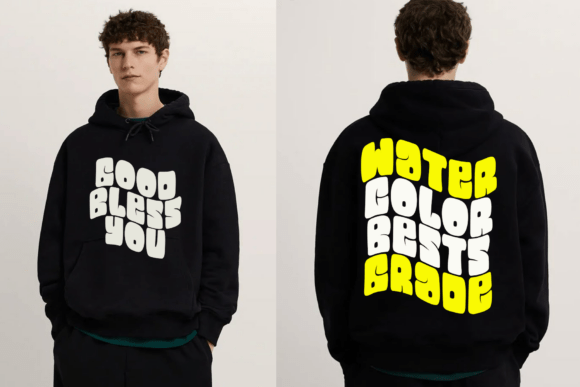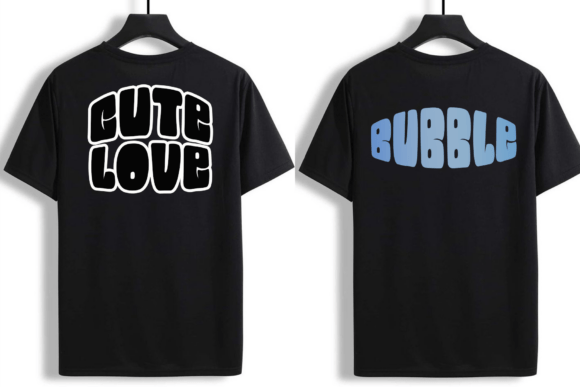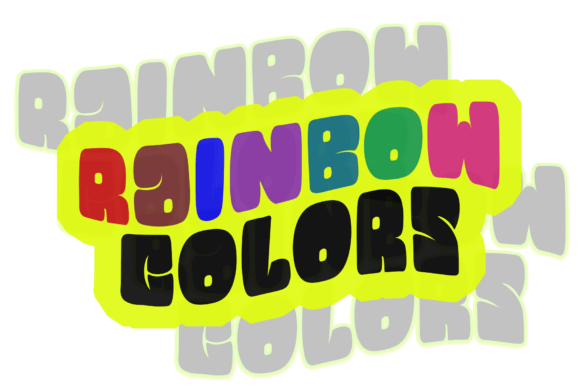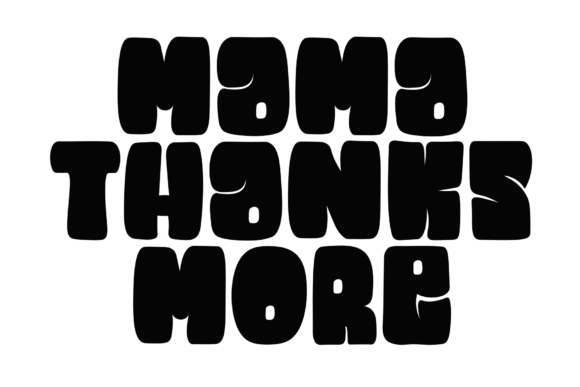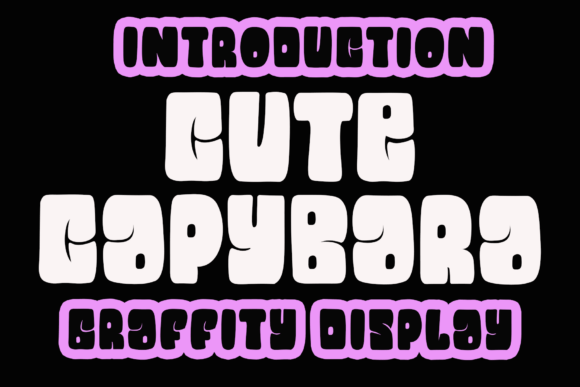
Cutes Capybara Font: The Perfect Addition to Your Design Projects
Are you tired of using the same old fonts for your design projects? Look no further than Cutes Capybara, a neat and casual display font that’s sure to bring a smile to your face. With its clean lines and easygoing vibe, this cheerful typeface is perfect for summer posters, event flyers, and playful branding.
What is Cutes Capybara Font?
Cutes Capybara is a display font designed to radiate fun and relaxation. Its unique and playful style makes it an excellent choice for designers and crafters looking to add a touch of whimsy to their projects. Whether you’re creating a poster for a summer sale, a flyer for a music festival, or a logo for a new brand, Cutes Capybara is the perfect font to bring a breezy, laid-back feel to your design.
Key Features of Cutes Capybara Font
- Clean Lines: Cutes Capybara features clean and simple lines that give it a fresh and modern look.
- Easygoing Vibe: The font’s casual and relaxed style makes it perfect for designs that require a friendly and approachable tone.
- Playful Style: Cutes Capybara’s unique and playful style sets it apart from other fonts, making it an excellent choice for designs that require a touch of whimsy.
- Versatile: This font is perfect for a wide range of design projects, from summer posters and event flyers to playful branding and more.
Uses for Cutes Capybara Font
Cutes Capybara is a versatile font that can be used for a wide range of design projects, including:
- Summer Posters: Add a touch of summer fun to your posters with Cutes Capybara’s breezy and laid-back style.
- Event Flyers: Create eye-catching flyers for music festivals, beach parties, and other events with this cheerful font.
- Playful Branding: Use Cutes Capybara to create a fun and playful brand identity that’s sure to appeal to a young and adventurous audience.
- Crafting Projects: Add a personal touch to your crafting projects, such as handmade cards and gift tags, with this charming font.
Why Choose Cutes Capybara Font?
With so many fonts to choose from, why should you choose Cutes Capybara? Here are just a few reasons:
- Unique Style: Cutes Capybara’s unique and playful style sets it apart from other fonts, making it an excellent choice for designers and crafters looking to add a touch of whimsy to their projects.
- Easy to Read: Despite its playful style, Cutes Capybara is easy to read, making it perfect for designs that require a clear and concise message.
- Versatile: This font is perfect for a wide range of design projects, from summer posters and event flyers to playful branding and more.
Cutes Capybara font is a fun and playful display font that’s perfect for designers and crafters looking to add a touch of whimsy to their projects. With its clean lines, easygoing vibe, and playful style, this cheerful typeface is sure to bring a breezy, laid-back feel to any creative project or message. Whether you’re creating summer posters, event flyers, or playful branding, Cutes Capybara is the perfect font to help you achieve your design goals.